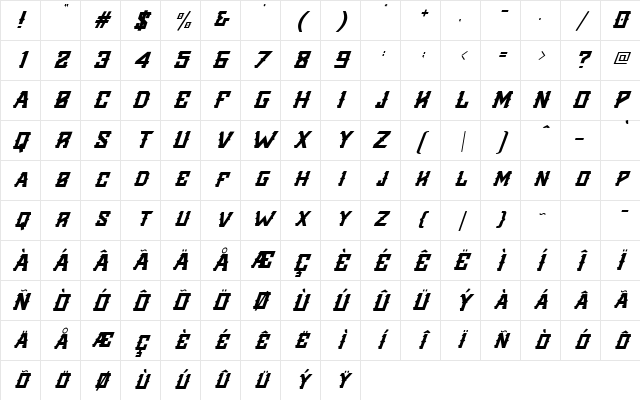
Golden Silver is a composed and adaptable typeface that performs quietly and consistently across a wide range of design contexts. The slanted form adds forward momentum and visual energy.
Pro Tip: Use Golden Silver for emphasis, pull quotes, and subheadings where its slanted energy can add rhythm to the layout.